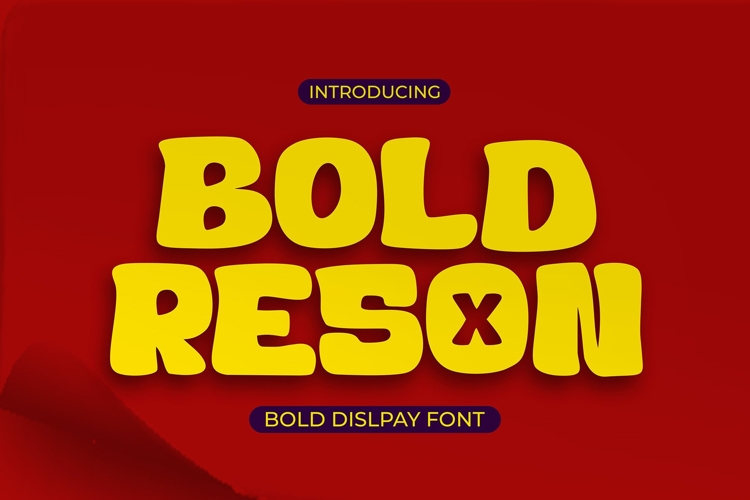
Bold Reson - Bold Display Font
Introducing Bold Reson – the bold display font that commands attention and leaves a lasting impression. More than just a font, Bold Reson is a powerful tool for making your message heard loud and clear, perfect for projects that demand a strong and confident aesthetic.
🏙️ Unrivaled Impact: With its bold and assertive letterforms, Bold Reson makes a statement wherever it's seen. Each character exudes strength and confidence, ensuring your message resonates with audiences and captures their attention instantly.
🎨 Versatile Application: From posters to branding, Bold Reson is versatile enough to handle any project with style and flair. Its bold display style adds impact and personality to your designs, ensuring they stand out from the crowd and leave a lasting impression.
🔥 Make Your Mark: Leave a lasting impression with Bold Reson. Its bold and commanding style ensures your message is seen and remembered, making it the perfect choice for projects that demand a strong and confident aesthetic.
🌟 Timeless Elegance: Despite its boldness, Bold Reson exudes a timeless elegance that adds a touch of sophistication to any design. Its clean lines and balanced proportions make it suitable for a wide range of applications, from print to digital.
💡 Endless Possibilities: With Bold Reson, the possibilities are endless. Whether you're designing logos, headlines, or signage, this font gives you the flexibility to express yourself and bring your ideas to life with confidence and flair.
🌆 Cityscape Inspiration: Inspired by the dynamic energy of the urban landscape, Bold Reson captures the vibrancy and vitality of city life. Its bold display style reflects the hustle and bustle of the streets, infusing your designs with an authentic urban vibe.
Transform your designs into bold statements with Bold Reson – where confidence meets creativity, and every letter speaks volumes. It's time to make your mark on the world with this best-selling bold display font leading the way.